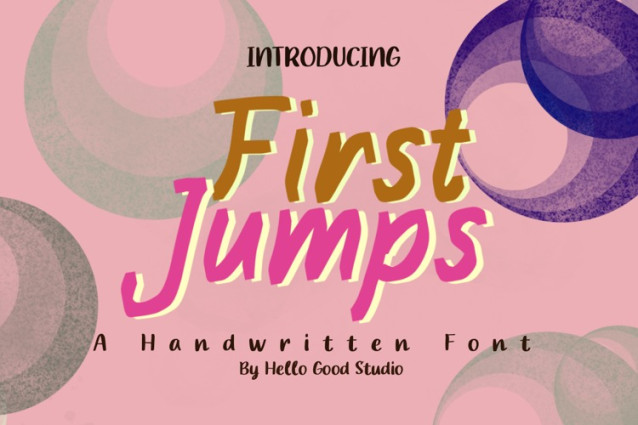
First Jumps Font
First Jumps Font a vibrant and energetic handwritten font designed by Studio Hello Good. With its bold, marker-style strokes and friendly curves, this font captures a sense of youthful joy and movement.